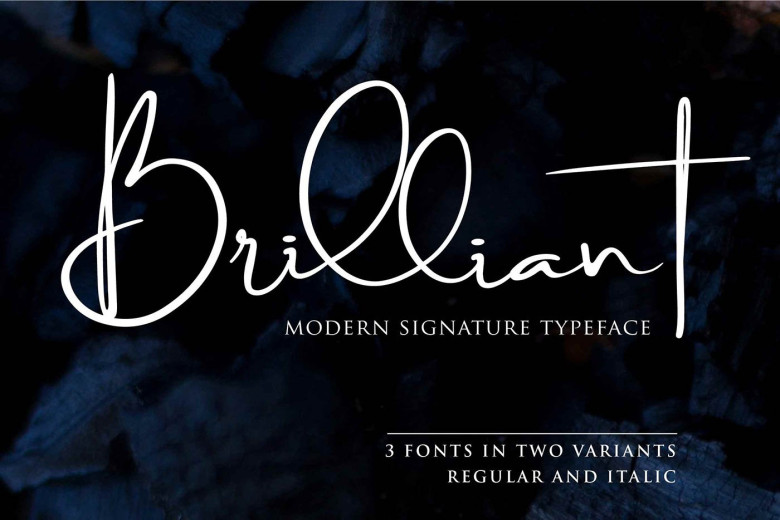
Brilliant Signature Font
Hi designer. Continue to be a product designed by Donis Miftahudin. Introducing Brilliant Font. Brilliant is modern signature typeface. This font will be suitable for Signature, namecard design, branding projects, product packaging,quotes, logo’s, book covers, and all your other lovely projects. Brilliant signature comes with elegant style and combined with casual style version, It contains a full set of lower & uppercase letters, a large range of punctuation, numerals, multilingual support and many lovely ligatures.